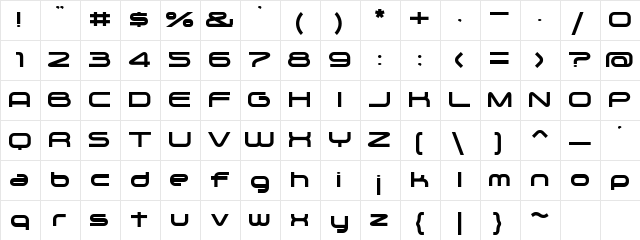
Zygo Regular Font Preview
Zygo Regular
Design Context for Zygo Typeface
Zygo takes a measured approach to typography — its balanced proportions and neutral character make it a reliable workhorse for both digital and print work.